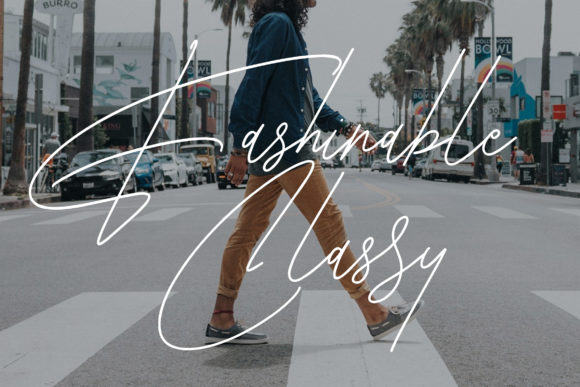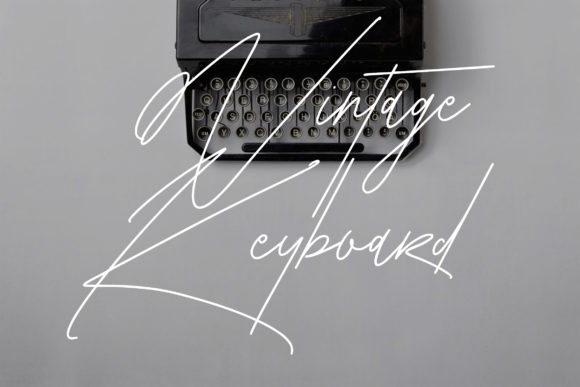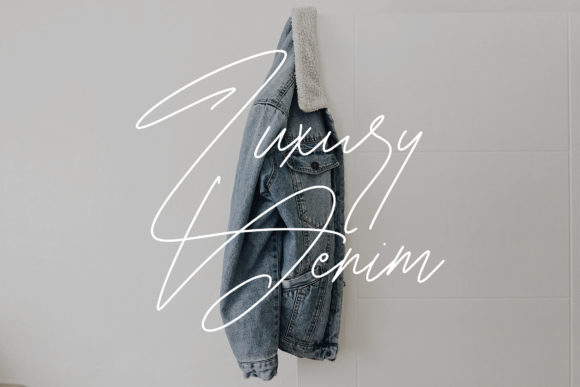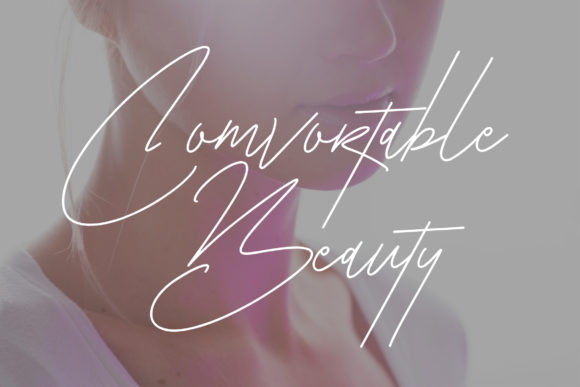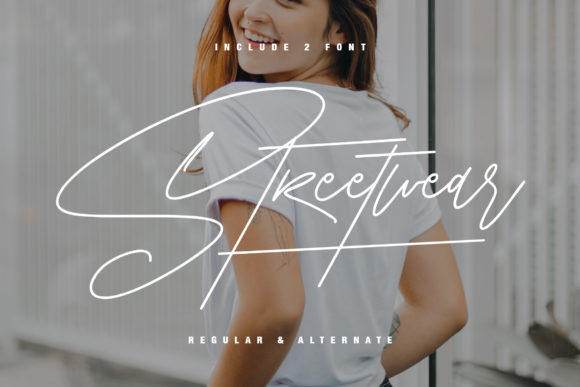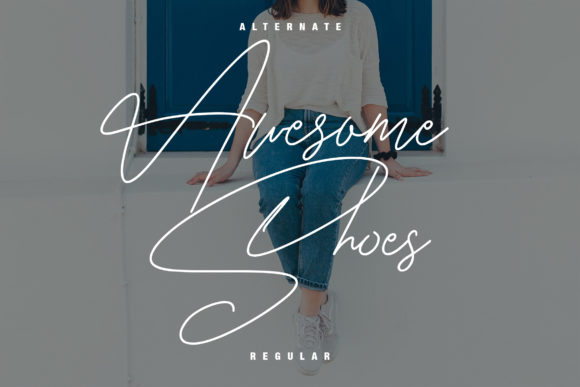
Introduction to Saturasi Font
As a designer, have you ever found yourself staring at a blank page, waiting for inspiration to strike? You’ve got a creative project in mind, but the right font is elusive. That’s where the Saturasi Font comes in – a game-changing script font that simplifies elegance into one truly outstanding design resource.
Imagine being able to create gorgeous wedding invitations, beautiful stationery art, eye-catching social media posts, and cute greeting cards with just one font. The Saturasi Font offers a high-quality, authentic feel that’s perfect for designers looking to elevate their work. And the best part? It’s available for free download, making it an accessible and valuable addition to any design toolkit.
With its transparent background and versatile style, the Saturasi Font is a must-have for any designer looking to add a touch of sophistication to their creative projects.
Saturasi Font Key Features
- High-quality, professional font suitable for various creative projects, including graphic design, web design, and digital art.
- Features a transparent background, allowing for seamless integration into designs with complex backgrounds and compositions.
- Designed with a unique aesthetic, Saturasi Font is perfect for designers seeking a distinctive and eye-catching typography solution.
- High-resolution font files (up to 300 DPI) ensure crisp and clear text display, even at large sizes or in high-magnification applications.
- Supports a wide range of languages, making it an ideal design resource for multilingual projects and global audiences.
Honest Review: Saturasi Font
I recently had the chance to work with the Saturasi Font, and I’m excited to share my honest review with you.
What works well: ✨ The Saturasi Font is a high-quality design resource that offers a unique and modern aesthetic. I love how versatile it is – I’ve used it for a variety of creative projects, from branding to web design. The font is also incredibly easy to customize, which is a huge plus.
- Transparent background: The font includes a transparent background, which is perfect for creating custom backgrounds or overlays.
- High-quality: The font is incredibly high-quality, with smooth lines and a crisp, clean look.
However, there are a few limitations to keep in mind: ⚠️ While the Saturasi Font is generally easy to use, it can be a bit finicky in certain situations. Additionally, the font may not be suitable for all types of projects – for example, it may not be the best choice for a traditional, serif-based design.
Overall, I’m really impressed with the Saturasi Font. It’s a great addition to any designer’s toolkit, and I highly recommend it for any creative project.
Saturasi Font
Tips for Getting the Most Out of Saturasi Font
Saturasi Font is ideal for various creative projects, including graphic design, digital art, and marketing materials. It’s also a great choice for presentations, posters, and flyers.